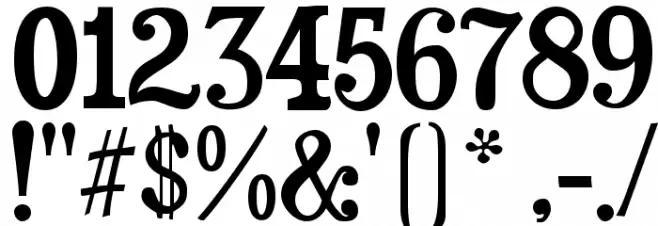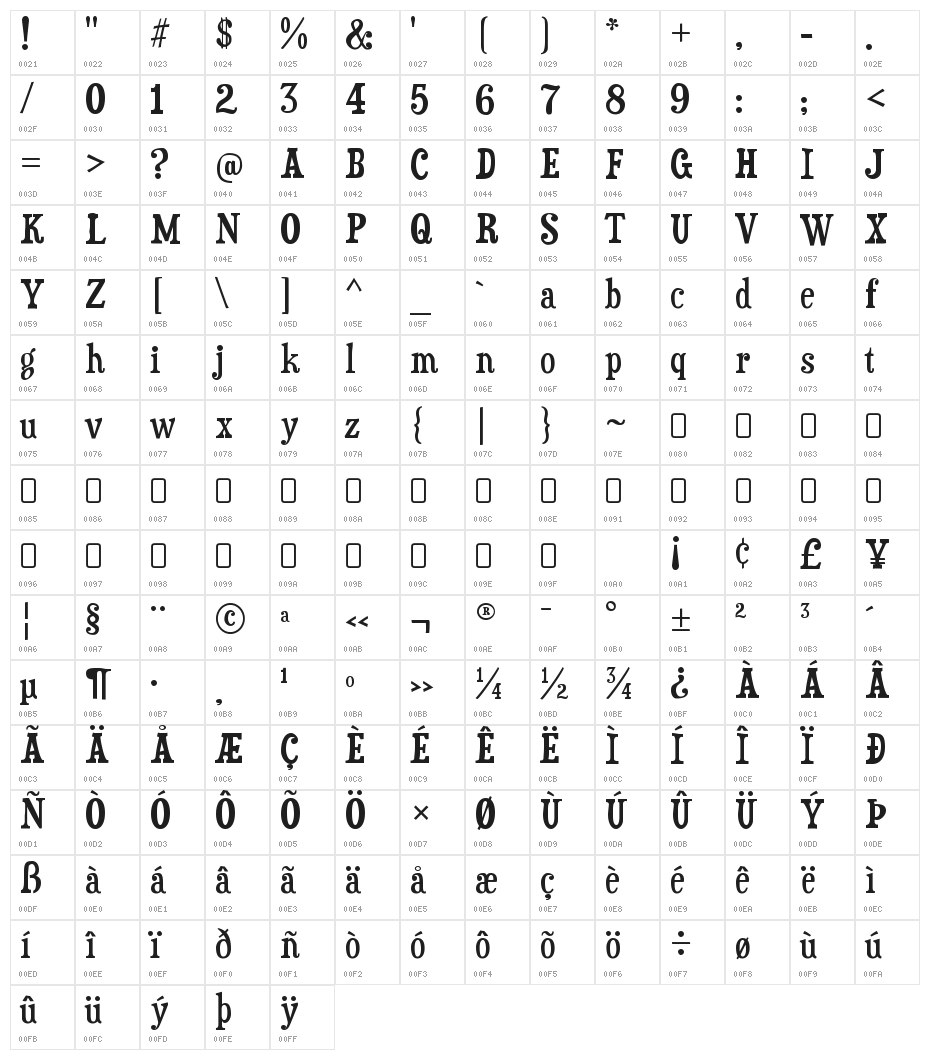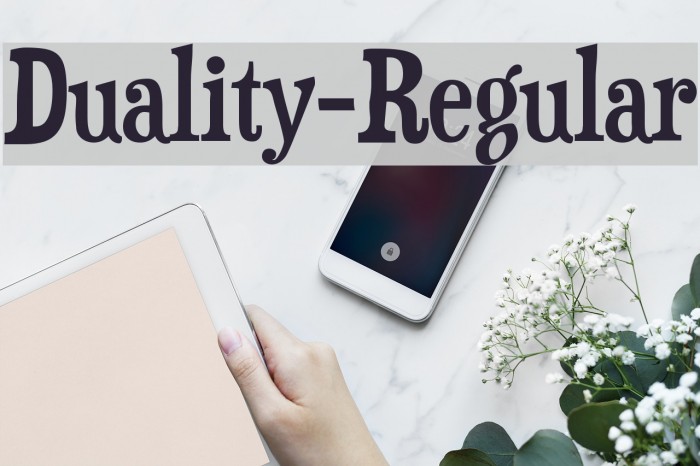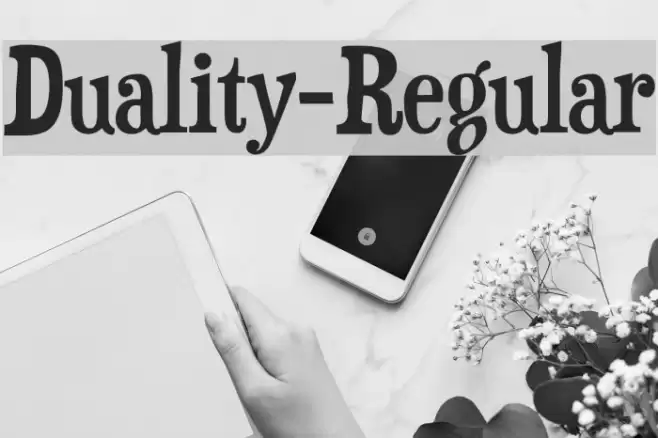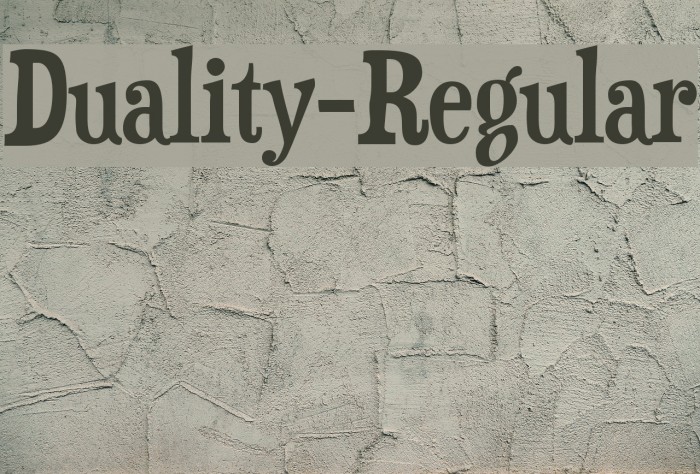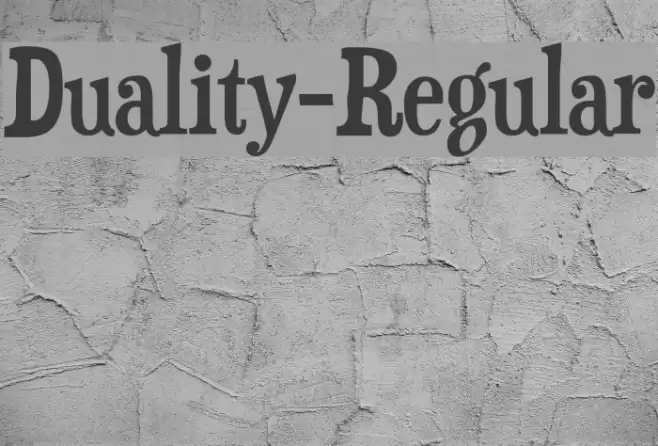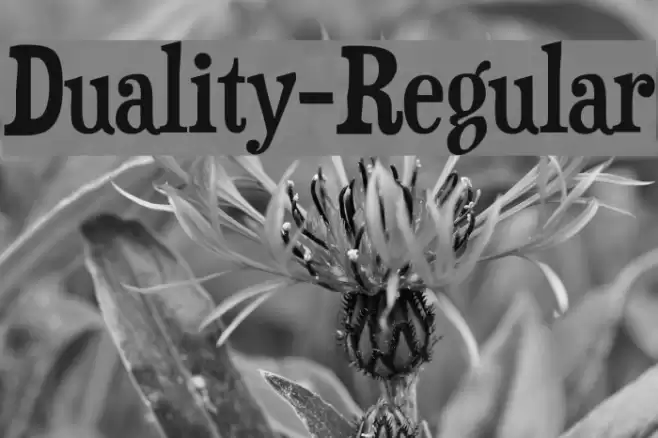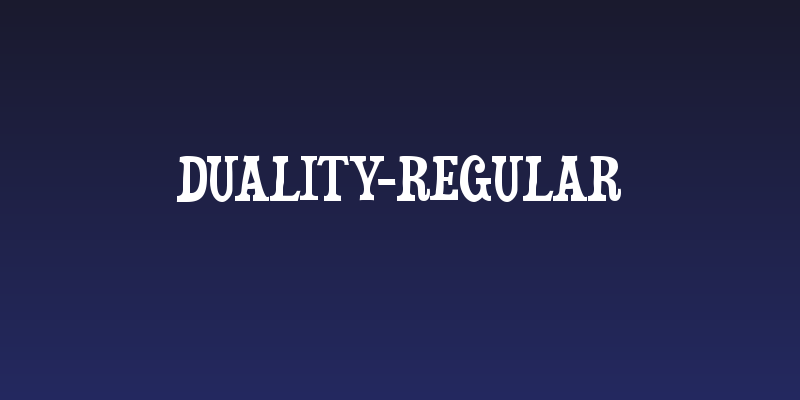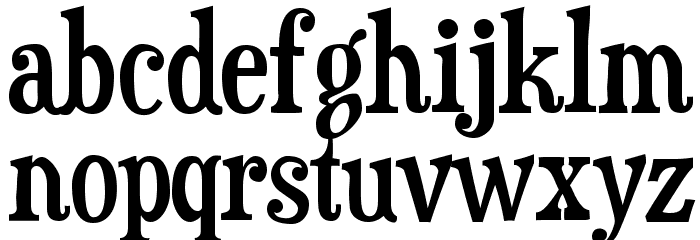
Duality-Regular Font
Duality-Regular Description
This font exhibits a bold and dynamic style with a strong presence, characterized by its thick strokes and high contrast between thick and thin lines. The uppercase letters are particularly striking, with a slightly condensed form that adds to their impact. The lowercase letters maintain a consistent style, offering a harmonious balance with the uppercase. The numerals are robust and clearly defined, ensuring readability. Special characters are well-integrated, maintaining the overall aesthetic. This font's unique flair makes it suitable for a variety of creative applications.